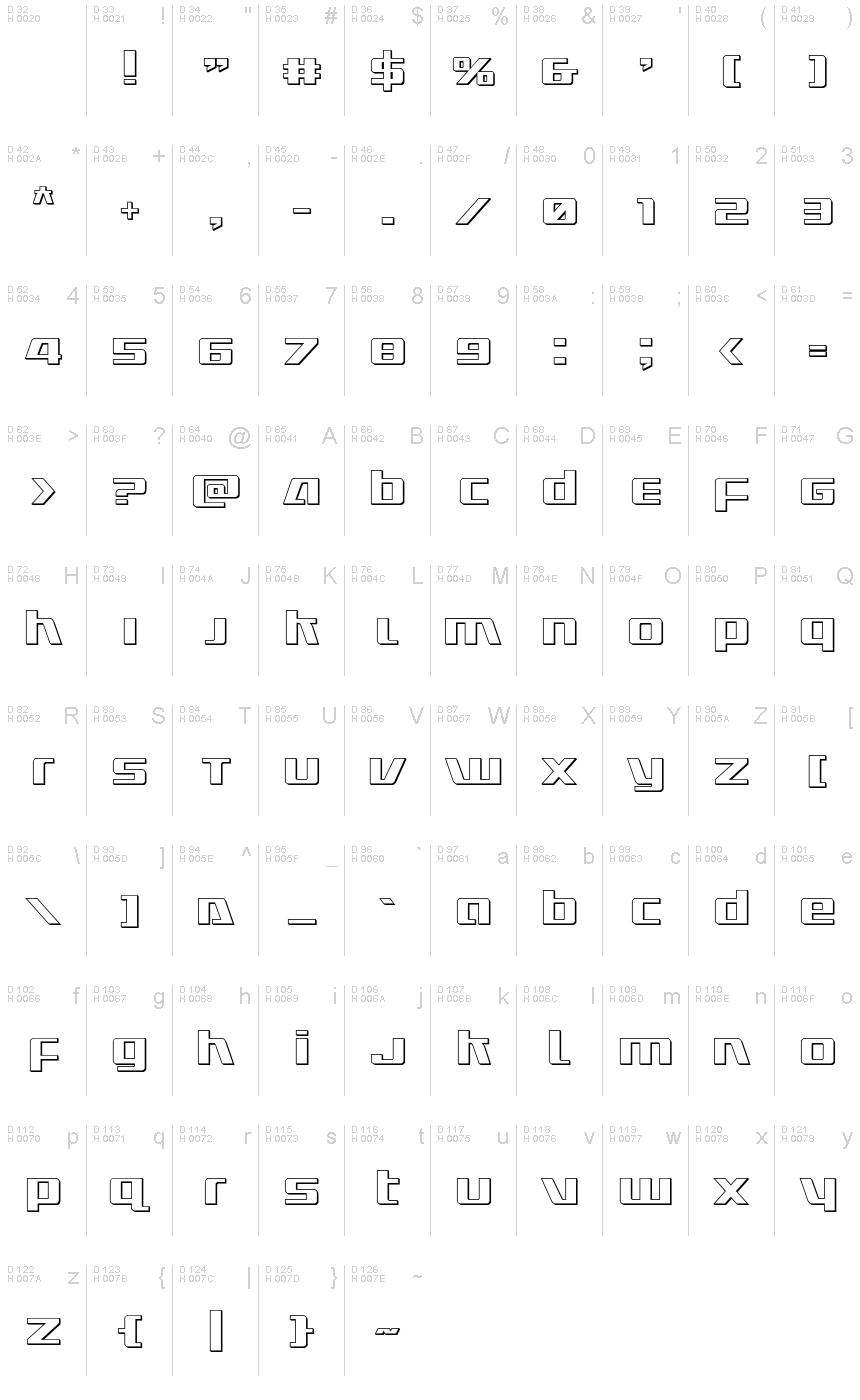
Ultramarines 3D
Ultramarines 3D captivates with its bold, expansive design that embodies a futuristic essence. The three-dimensional characteristics create a striking visual depth, making each letter stand out like a sculptural piece. Its commanding presence is enhanced by the light contours and exaggerated forms, giving it an inviting yet dynamic appeal.
This font is particularly well-suited for eye-catching titles, thrilling graphic designs, or any creative project seeking to convey energy and modernity. Whether in digital media or print, Ultramarines 3D effectively captures attention and leaves a lasting impression, making it an ideal choice for branding elements and promotional materials aiming for a strong visual impact. Its unique style not only draws the eye but also sparks curiosity and interest in the message it presents.